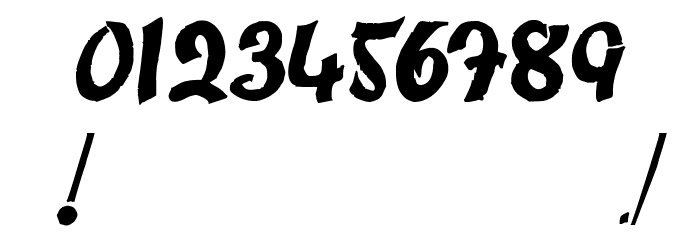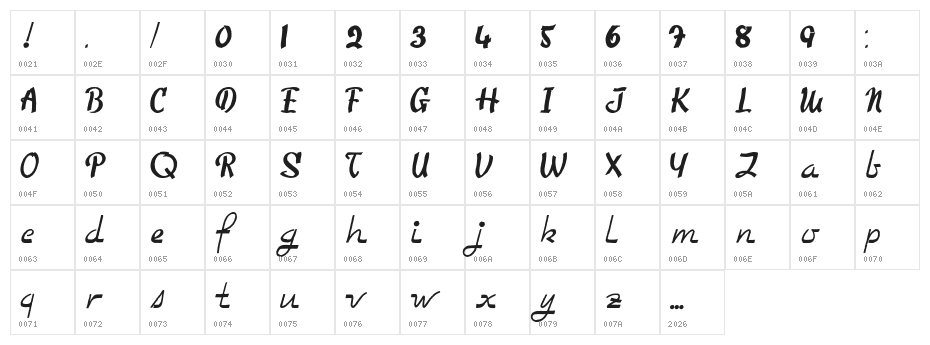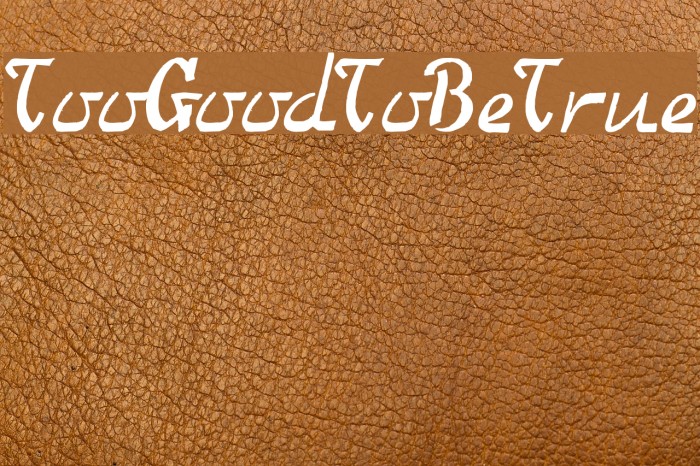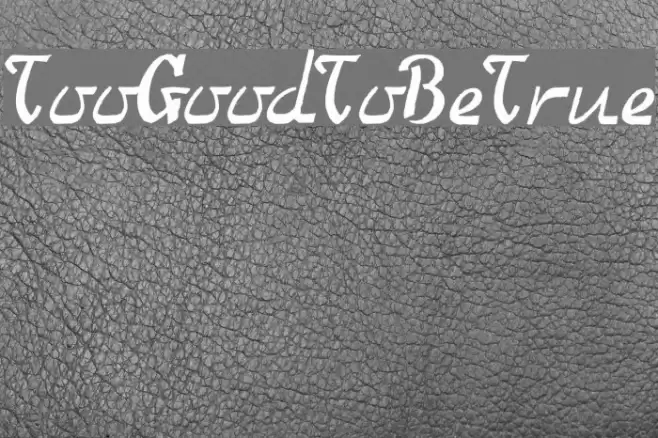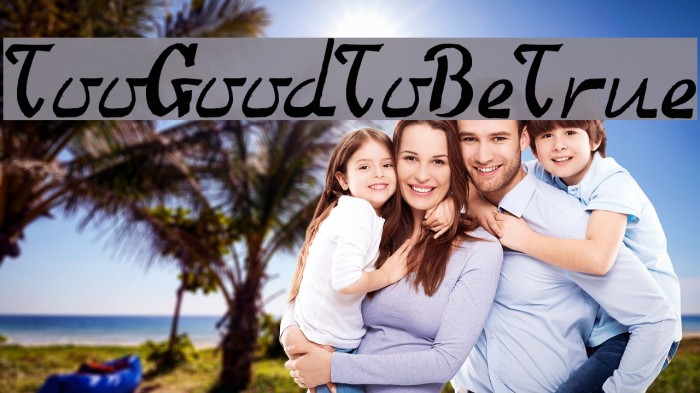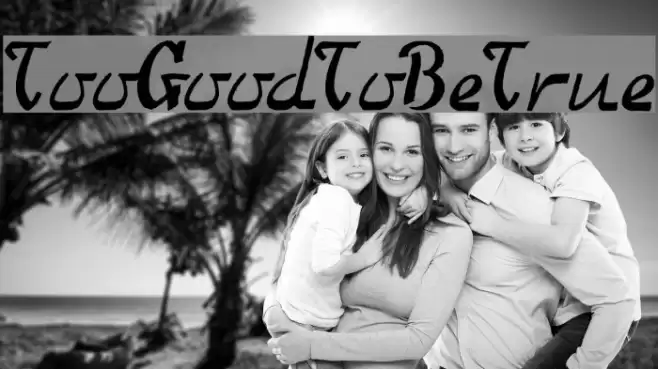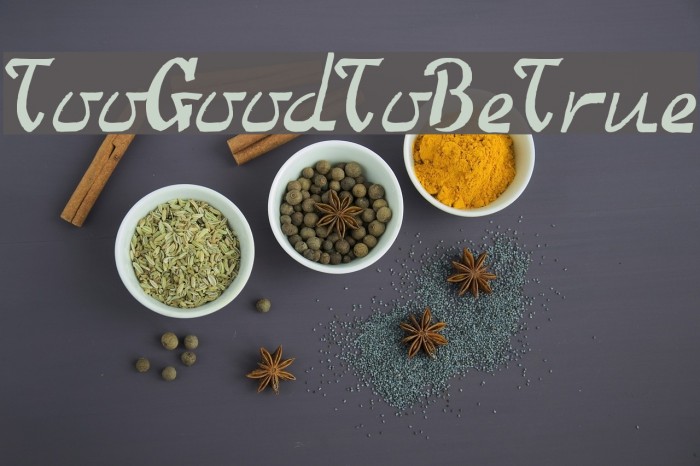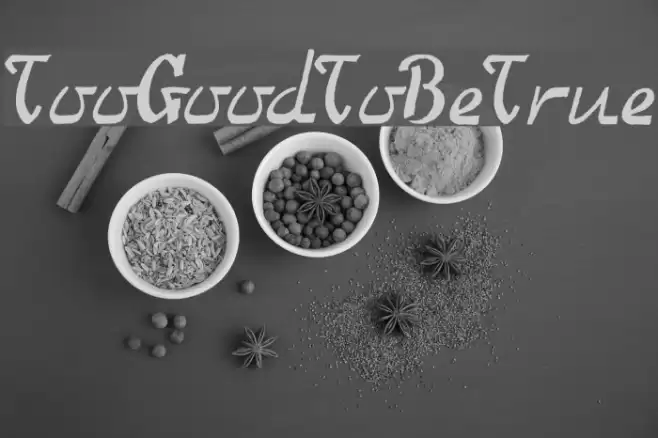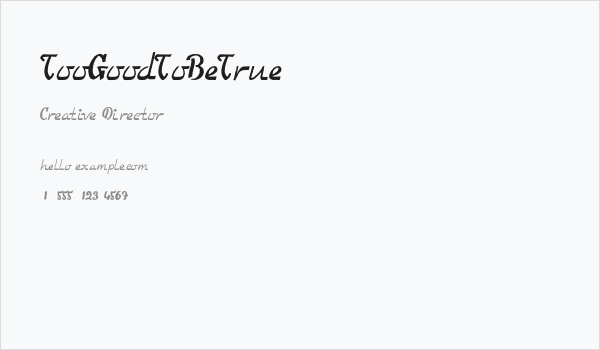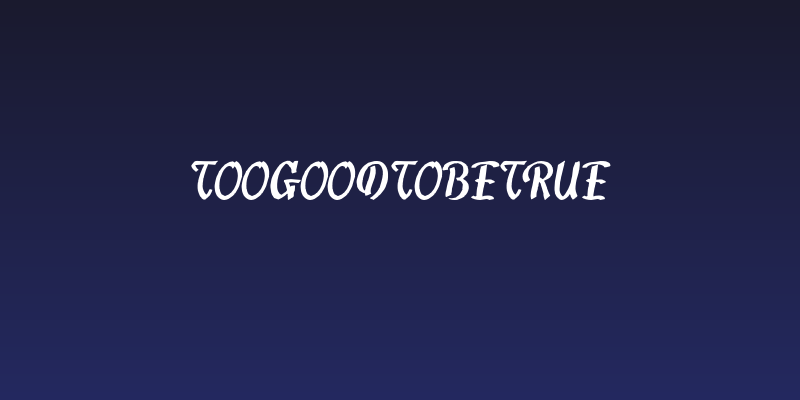
TooGoodToBeTrue Font
TooGoodToBeTrue Description
This font features a dynamic and expressive style, combining elements of both script and decorative design. The uppercase letters are bold and slightly slanted, giving a sense of movement and energy. The lowercase letters maintain a consistent flow, with unique character shapes that add a playful yet sophisticated touch. The numbers are robust and maintain the same stylistic flair as the letters, ensuring a cohesive look across all characters. The special characters are designed to complement the overall style, making them suitable for various creative applications.
| Use Case | Logos, Invitations, Creative projects |
| Proposed Projects | Ideal for branding, logos, invitations, and creative projects that require a bold and artistic touch. |